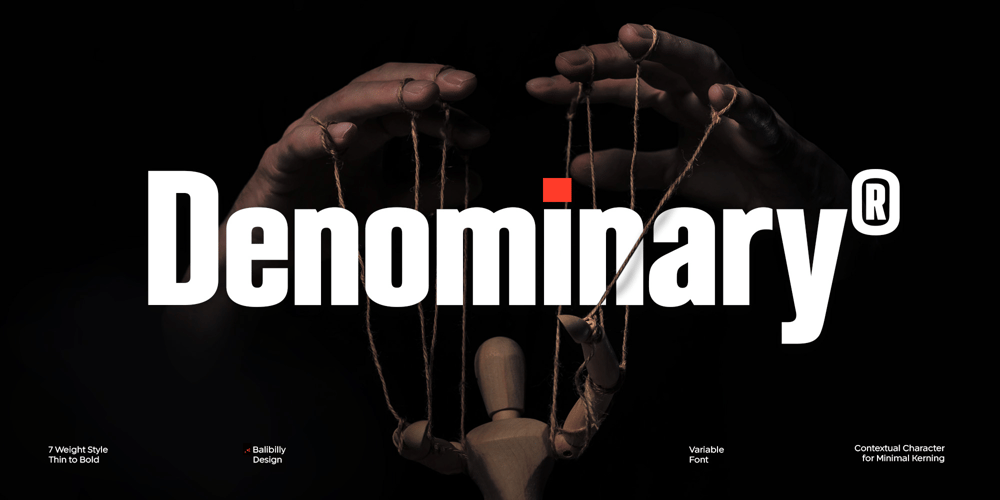
Denominary Font Family was designed by I Wayan Bill Natih and published by Balibilly Design. Denominary contains 8 styles and family package options. Denominary typeface is about precision, beauty, and refinement. It’s crafted with care and attention to detail for professional creative people who value quality and distinction.The Denominary typeface has an advanced feature that sets it apart from others: auto-active contextual alternates. Our font engineer writes this feature to minimize kerning between characters automatically, making it very convenient and easy to use, especially for web purposes where minimal kerning means a smaller font size. The feature adjusts the kerning based on the specific characters being used, ensuring optimal spacing between letters. Contextual alternates will push your typography project to a balanced form. We designed the letterform by considering the white space and contrast to get a natural voice and fluid, and of course, this will happen in a legible and stylish.Denominary typeface offers extensive language support and stylistic variations, thanks to its 482 glyphs. It also has discretionary ligatures, case-sensitive forms, and slashed zeroes for added typographic options. The condensed style saves space, and seven weights will provide more options.Denominary typeface brings refinement, exclusivity, and sophistication to any design project. It’s a typeface that tells a story of precision, beauty, and distinction. Go ahead with the game in terms of its advanced auto-active contextual alternates feature, giving you a competitive edge in the design field.